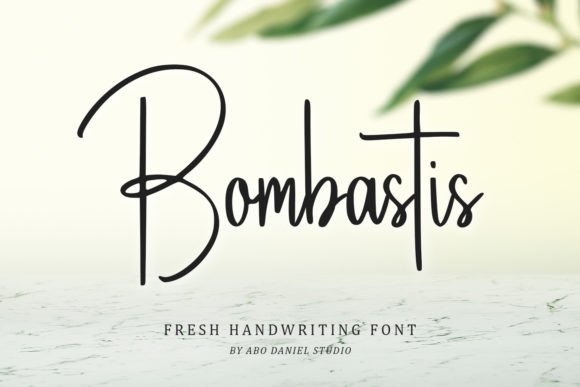
Introducing Bombastis Font - The Dashing Handwriting Font to Elevate Your Designs!
Journey into the world of creative expression with Bombastis Font, a captivating script font family meticulously crafted by Abodaniel. This elegant font boasts a natural touch that adds a personal flair to your designs, making it an ideal choice for branding, packaging, quotes, logos, t-shirt designs, tote bag designs, cards, banners, social media, and more!
Unleash the Power of Bombastis:
• Ignite Creativity: Spark your imagination with Bombastis, the perfect font for expressing your unique style. Its organic flow and natural charm bring a touch of authenticity to your designs, allowing your words to dance off the page.
• Make a Statement: Create bold and captivating titles that demand attention. Bombastis is the ultimate choice for making a statement in your designs. Its distinctive letterforms and dynamic curves command attention, ensuring your message stands out from the crowd.
• Add a Personal Touch: Infuse your designs with a personal touch that resonates with your audience. Bombastis' natural handwriting-like style evokes a sense of authenticity and connection, making your creations feel like a heartfelt expression of yourself.
Experience the Versatility of Bombastis:
• Design with Ease: Effortlessly elevate your designs with Bombastis, the font that effortlessly complements a wide range of styles. Whether you're creating elegant invitations, playful social media posts, or eye-catching marketing materials, Bombastis seamlessly integrates into your vision.
• Endless Possibilities: Unleash your creativity with Bombastis, the font that knows no bounds. Experiment with different sizes, colors, and backgrounds to create stunning visuals that capture the essence of your brand or message. The possibilities are limitless!
Discover the Beauty of Bombastis:
• Handcrafted Excellence: Each letterform in Bombastis is meticulously crafted to embody the essence of natural handwriting. The font's organic flow and subtle variations create a visually appealing texture that adds depth and character to your designs.
• Timeless Appeal: Bombastis transcends trends, embodying a classic style that remains relevant and captivating. Its timeless beauty ensures that your designs will stand the test of time, making a lasting impression on your audience.
Embrace the Allure of Bombastis: